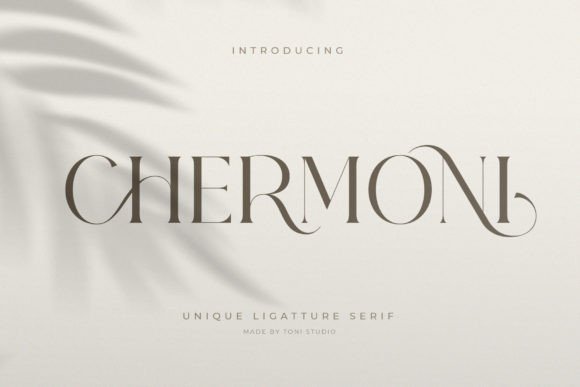
Welcome to the world of Chermoni Font, a captivating and versatile serif font that will elevate your design projects to new heights! Created by ToniStudio, this font is a must-have for anyone in search of the perfect typography.
With Chermoni Font, you have the power to create beautiful and harmonious designs that will leave a lasting impression. Whether you're working on elegant and luxurious logos, classy editorial layouts, or captivating women's magazines, this font has got you covered.
Fashion brands and cosmetic brands alike will find Chermoni Font to be the ultimate tool to capture their essence and create stunning promotional materials. Its modern and sophisticated look will make your advertising designs stand out from the crowd and attract attention.
Invitation cards and book titles will come to life with Chermoni Font's unique ligatures and exquisite details. It adds a touch of elegance and refinement to any special event, making it the perfect choice for weddings, birthdays, and more.
But Chermoni Font doesn't stop there. It's also a fantastic choice for merchandise such as tote bags and T-shirts. With its eye-catching appeal, you can create designs that people will want to wear and show off.
Artists and designers will appreciate Chermoni Font's ability to bring their quotes and messages to life. Its timeless and sophisticated style adds a touch of class to any art project, making it perfect for home decor or gallery exhibitions.
When it comes to advertisements, Chermoni Font is a game-changer. Its captivating presence will draw attention and make your brand unforgettable. Say goodbye to dull and generic designs, and hello to a font that truly makes a statement.